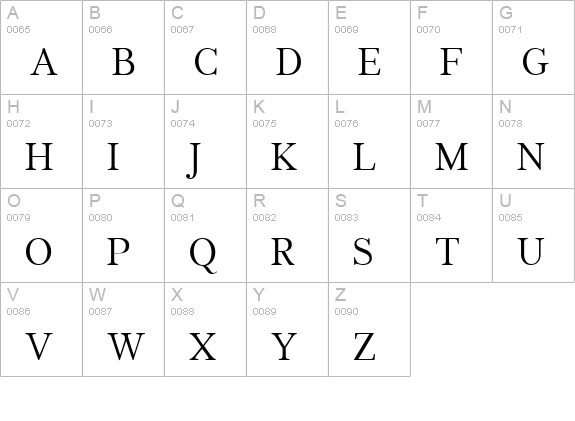
JabcedHy Font Details
Introducing JabcedHy, a captivating and stylish font that effortlessly combines modernity with a touch of elegance. This font is perfect for adding a unique and sophisticated flair to any project, whether it's a logo, branding, packaging, or any other design endeavor. JabcedHy features clean lines and smooth curves, creating a sleek and polished look that is sure to catch the eye. Its versatile nature allows it to adapt seamlessly to various design concepts, making it a must-have for both professional designers and creative enthusiasts. But here's the best part - JabcedHy is absolutely free! That's right, this stunning font can be freely downloaded at FontsMarket.com. We believe in making high-quality fonts accessible to everyone, and we're thrilled to offer JabcedHy as a complimentary addition to your font collection. With JabcedHy, you'll have endless possibilities at your fingertips. Its extensive character set includes uppercase and lowercase letters, numerals, punctuation marks, and even multilingual support, ensuring that your message can be conveyed effectively across different languages and platforms. So go ahead and elevate your designs with the captivating allure of JabcedHy. Download it for free at FontsMarket.com and let your creativity soar to new heights.